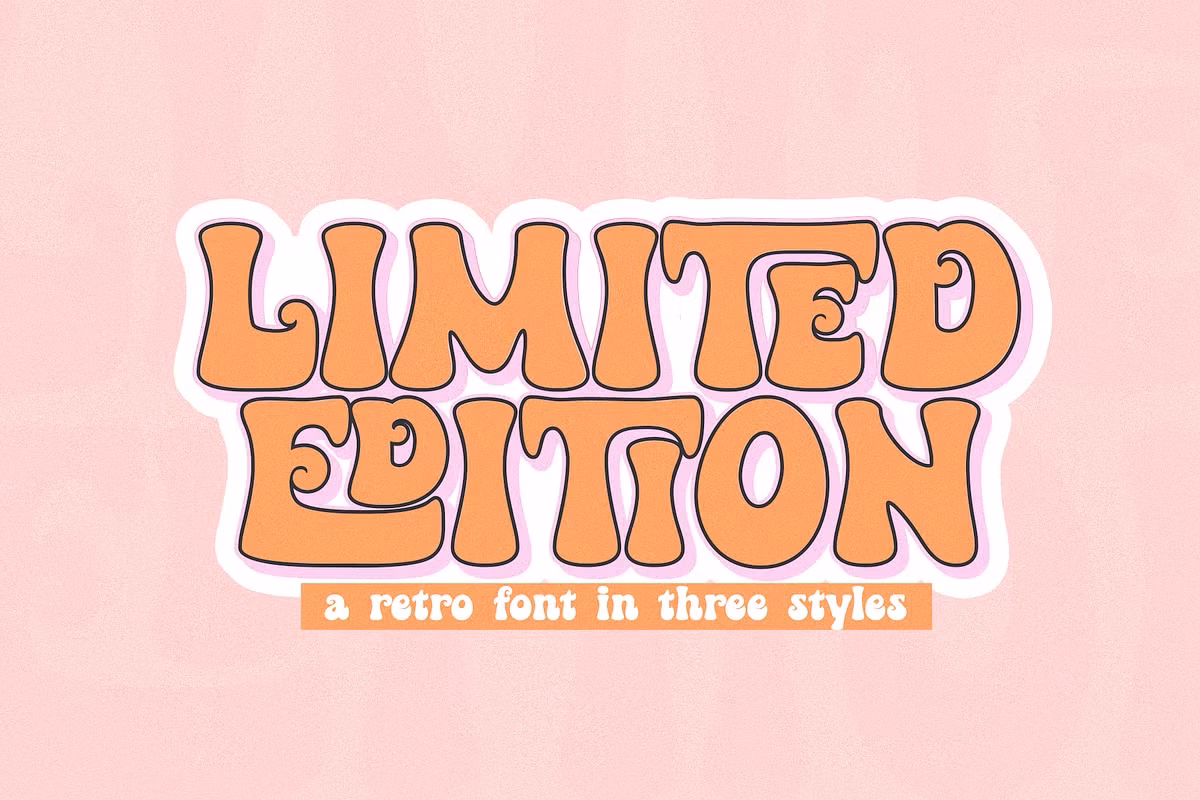
Limited Edition – Retro Font Free Download is a bold and vintage-inspired typeface that brings a nostalgic flair to your designs. Please note, you are required to purchase this font for commercial use. It is available for free download for testing and personal projects only.
With its clean lines, dynamic shapes, and retro aesthetic, Limited Edition is perfect for branding, product packaging, posters, apparel, and promotional materials. It evokes the spirit of the ‘70s and ‘80s, making it ideal for projects that need a timeless, yet modern, touch.
By choosing Limited Edition – Retro Font Free Download, you're getting a high-quality font that installs easily and works seamlessly across all major design platforms. Whether you're designing for vintage-inspired campaigns or contemporary branding, Limited Edition adds character, boldness, and an unmistakable retro vibe to your typography.